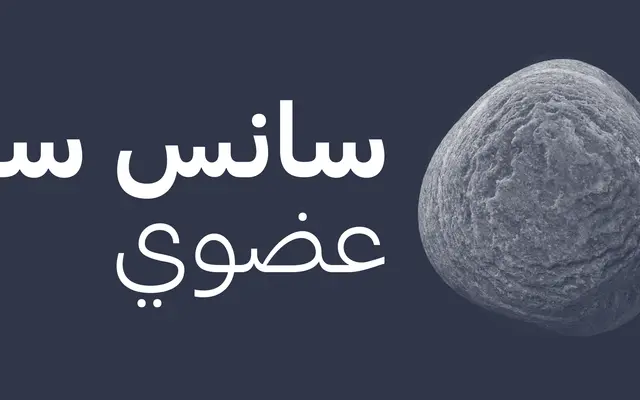
At Haüss Arabic
Arillatype · Muhammed Hadi, Pedro Arilla · 2023
A contemporary Arabic typeface in a slightly contrasted Naskh style, designed as the Arabic companion to the neo-grotesque At Haüss family.
Designed by Muhammed Hadi and Pedro Arilla, it spans 10 weights from Air to Super, with a dedicated Retina cut optimised for high-density screens. The family supports Arabic, Persian and Urdu alongside Latin Extended covering 100+ languages, and is available as a variable font with a single weight axis. Part of the At Haüss Collection alongside the Latin and Mono companions.
Drawn in a modern, slightly contrasted Naskh style for the Arabic script, paired with a neo-grotesque Latin companion, placing it within the humanist sans tradition adapted for Arabic typography.